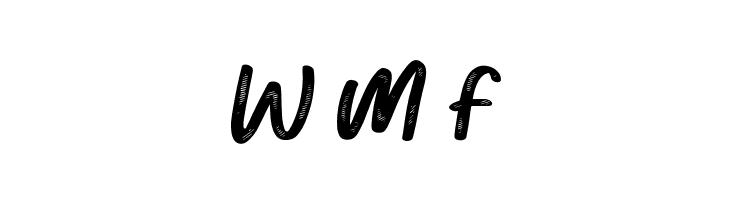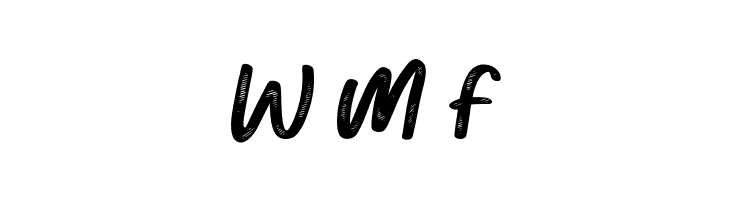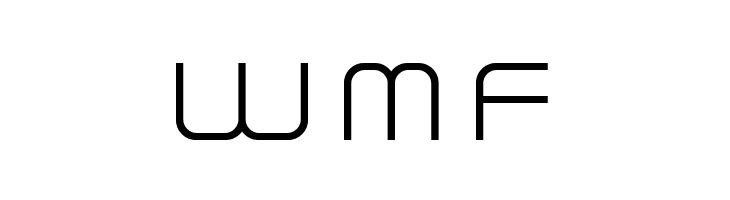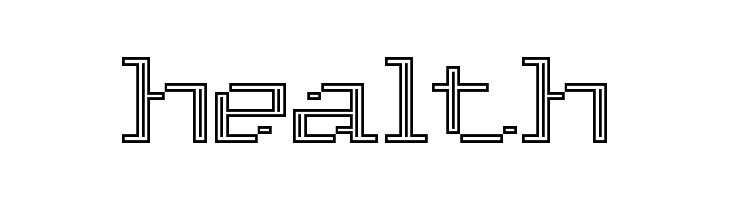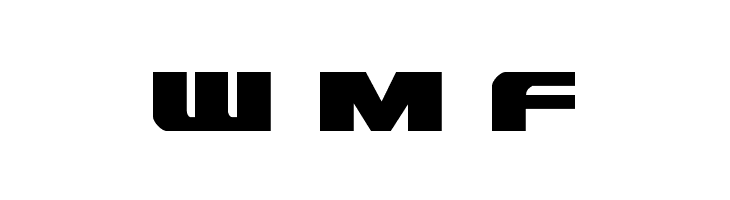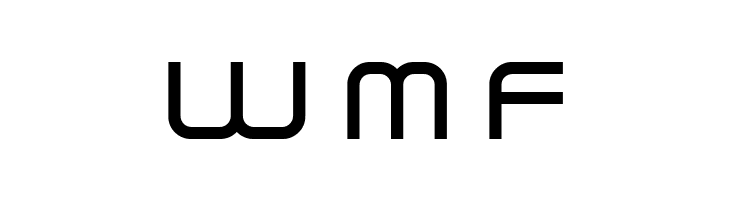
A futuristic, italic font with a striped, dynamic design.
A bold, futuristic font with geometric shapes and a sci-fi aesthetic.
A modern, geometric font with rounded edges and uniform stroke width.
A modern, geometric font with clean lines and rounded edges.
A bold, handwritten font with a playful and dynamic style.
A playful, rounded font with a handwritten style.
A geometric, pixelated font with a retro digital style.